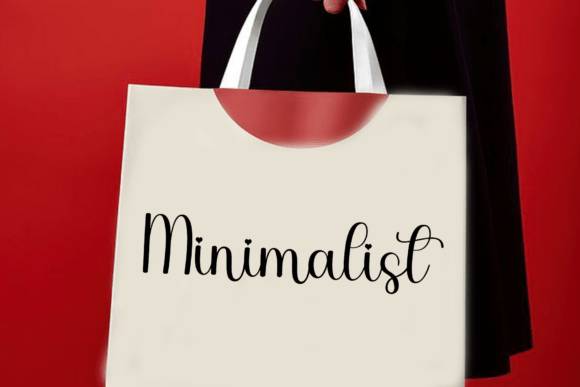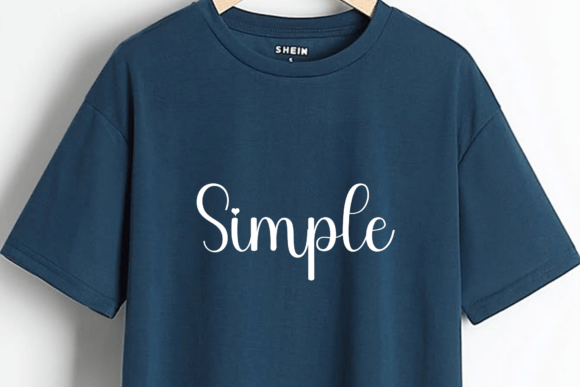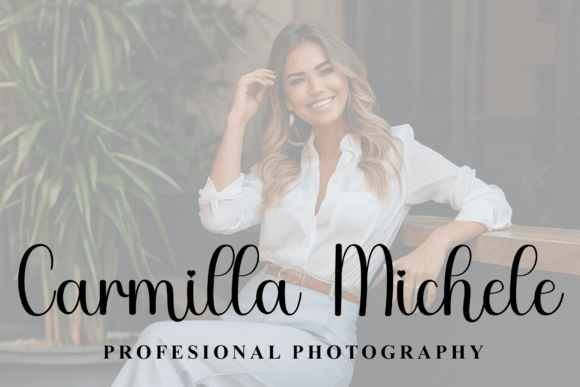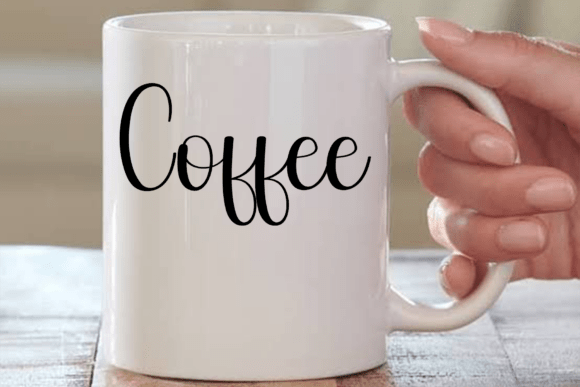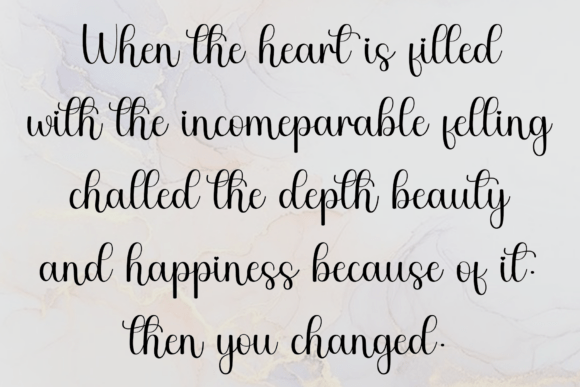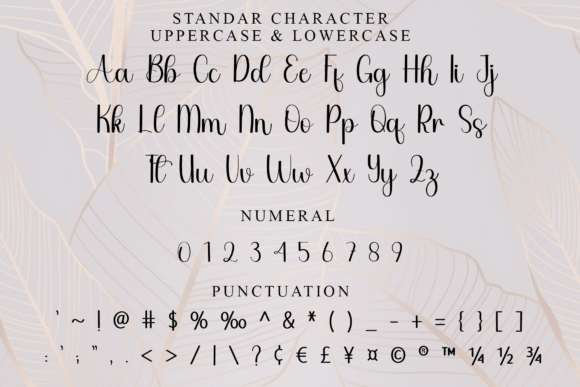
Unlock the Magic of Summer Vibes in Your Design
There’s something special about sipping lemonade on a sunny afternoon, feeling the warmth of the sun on your skin, and watching the world slow down. It’s moments like these that inspire creativity and remind us to have fun with our designs. As we dive into the heart of summer, we’re excited to introduce you to the perfect font to capture those carefree feelings – the Creative Summer Font.
This charming font is designed to evoke the warmth and friendliness of a summer day. With its round, playful strokes and hand-drawn aesthetic, it’s the perfect addition to any personal project, invitation, or social media graphic. Whether you’re a seasoned designer or a creative enthusiast, the Creative Summer Font is a valuable addition to your toolkit, allowing you to bring a touch of summer magic to your designs.
Creative Summer Font Key Features
- Size: Multi-language support for characters from 0-9, A-Z, a-z, and additional characters
- Unique Characteristics: Hand-drawn style with playful, whimsical feel and modern flair
- Character Count: Includes a wide range of characters, including punctuation, symbols, and ligatures
Review: Creative Summer Font
Overall, I think the Creative Summer Font is a solid addition to any designer’s toolkit. There are a few things that really stand out to me. ✨ The font’s playful, whimsical feel is perfect for summer-themed projects, and the script-style letters add a touch of elegance. ✨ I also appreciate the wide range of weights and styles available, which makes it easy to customize the font to fit your specific needs. ✨ Finally, the font’s legibility is top-notch, even at small font sizes.
However, there are a few limitations to be aware of. ⚠️ The font’s design may be a bit too on-the-nose for some projects – if you’re looking for something a bit more subtle, you may want to look elsewhere. ⚠️ Additionally, the font’s complexity may make it difficult to use in certain situations, such as in very large or very small font sizes. ⚠️
Overall, I’d say the Creative Summer Font is a great choice for designers who are looking for a fun, summery vibe. While it may not be the most versatile font, it’s definitely worth considering for projects that require a lighthearted, playful feel.
- Playful, whimsical feel perfect for summer-themed projects
- Wide range of weights and styles available
- Legibility is top-notch, even at small font sizes
Tips for Getting the Most Out of Creative Summer Font
Use Creative Summer Font for summer-themed projects, such as beach invitations, summer sales promotions, or outdoor event flyers.
Combine Creative Summer Font with bright and pastel colors to create a fun and playful atmosphere.
Experiment with different font sizes and styles to add visual interest to your design.
Summer-themed projects, such as beach invitations, summer sales promotions, or outdoor event flyers.
Wedding invitations or stationery with a summer wedding theme.
Summer-themed social media graphics or ads.